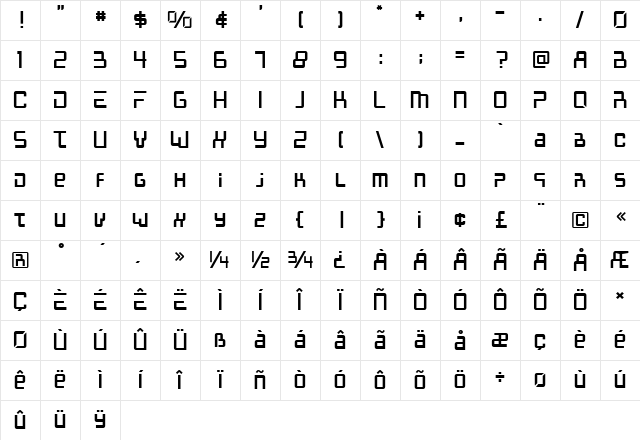
McAlberto Regular Free Font
McAlberto Regular
Foundry: Murat Yegul
Designer: Murat Yegul
Design Context for McAlberto
McAlberto is a composed and adaptable typeface that performs quietly and consistently across a wide range of design contexts.